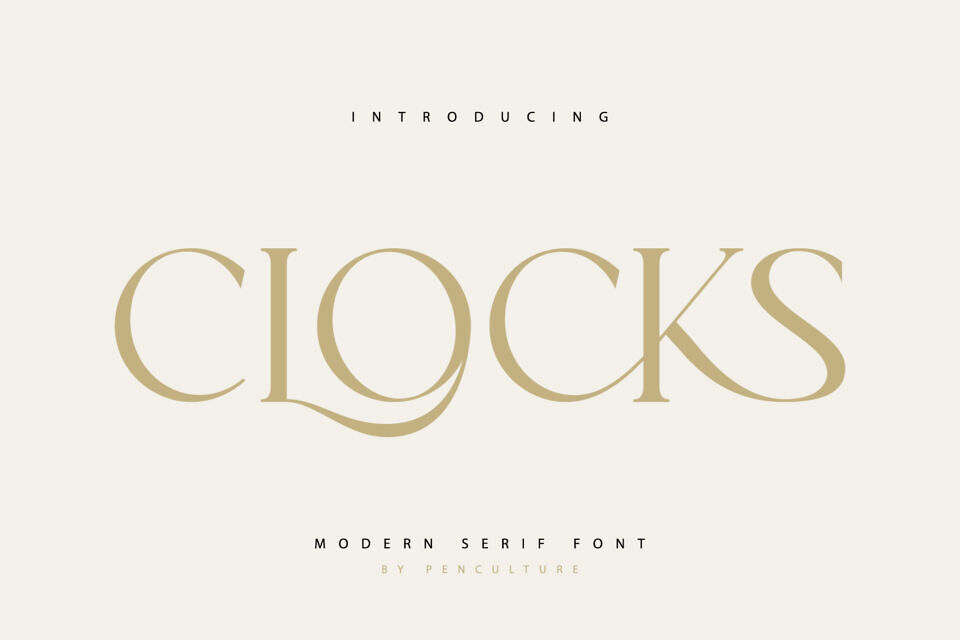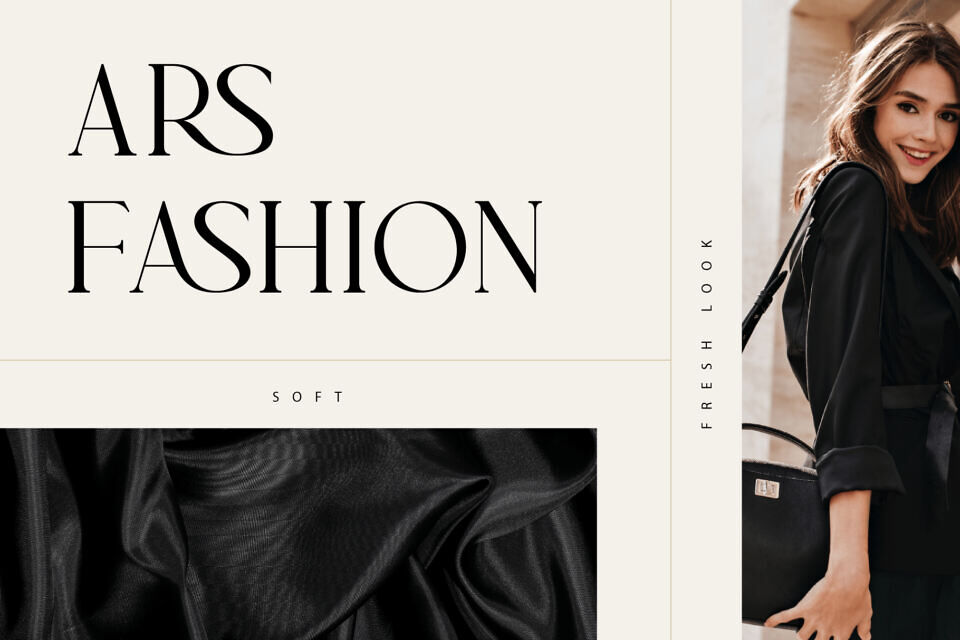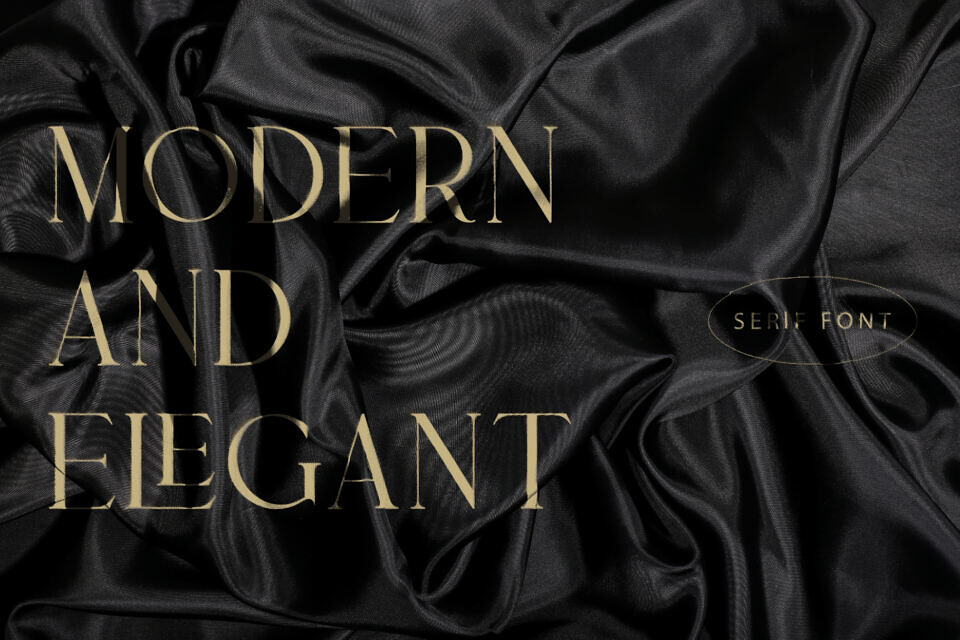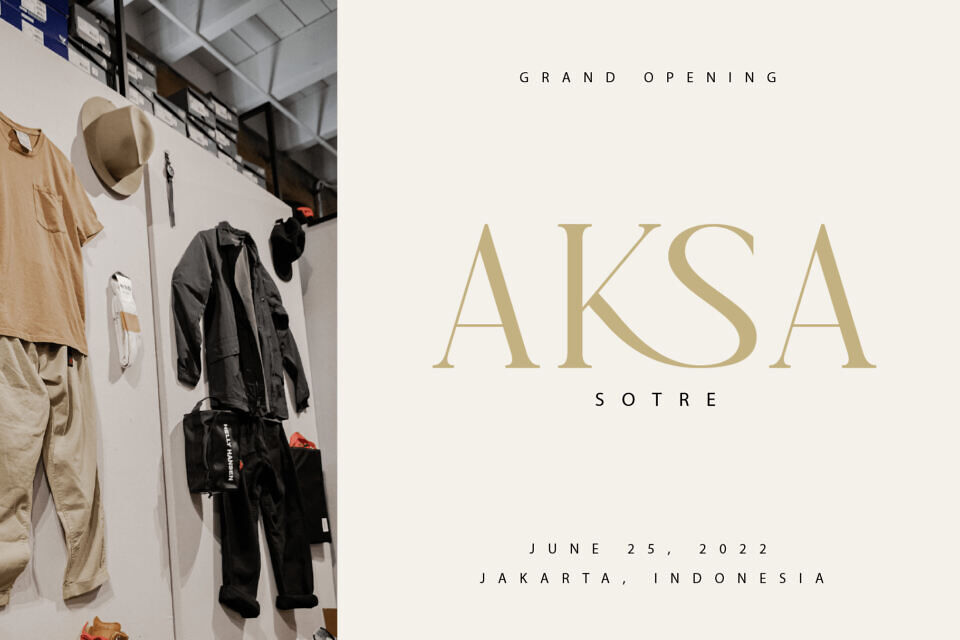
Clocks Font
Clocks is modern and elegant serif font with lovely ligature. this font has authentic shape which is very suitable for various design projects such as branding, logo, fashion design and many others.